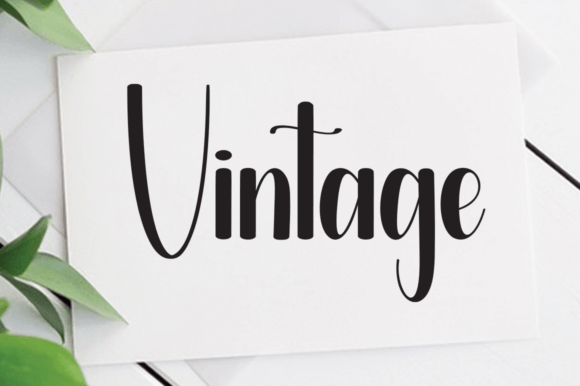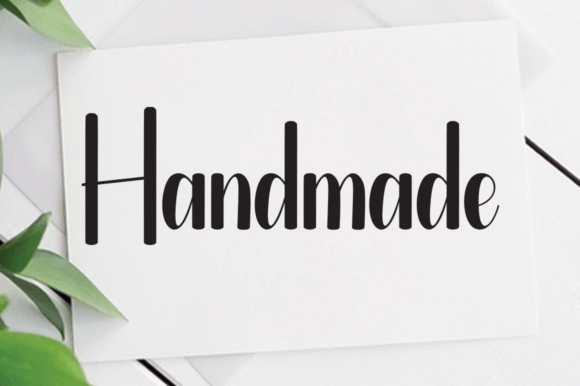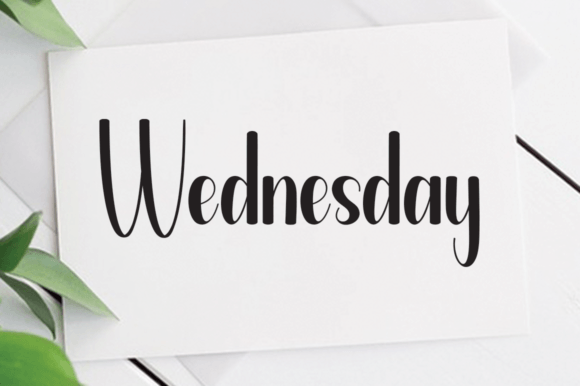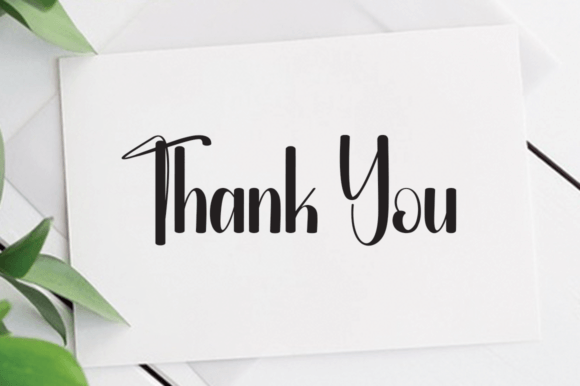
Unleashing the Art of Handwritten Charm: Calligraphy Font
As a designer, have you ever found yourself scribbling down ideas in a notebook, only to be captivated by the beauty of your own handwriting? It’s those moments of creative flow that remind us of the power of human touch in design. And that’s exactly what the Calligraphy Font brings to the table – a sweet and cursive handwritten font that adds a personal, emotive touch to any project.
Calligraphy Font is a versatile tool that can elevate a wide range of design ideas, from wedding invitations to social media graphics. Its gentle curves and flourishes will transport your audience to a world of romance and whimsy, making it a valuable addition to any designer’s toolkit. Whether you’re looking to add a touch of elegance or playfulness to your designs, Calligraphy Font is the perfect choice.
Key Features of Calligraphy Font
- Unique Characteristics: Calligraphy fonts are known for their elegant and cursive writing style, with distinctive flourishes and ornaments that add a touch of sophistication to text.
- Legibility: Despite their decorative nature, calligraphy fonts are designed to be highly legible, making them suitable for use in a variety of applications, including body text and headings.
Calligraphy Font Review
Overall, I think the Calligraphy Font is a beautiful and elegant font that can add a touch of sophistication to any design project. Here are some things that I think work well:
- ✨ The font’s flowing, handwritten feel is perfect for titles, headings, and other text elements that need to stand out.
- ✨ The font’s high level of customization options, such as letter spacing and font size, make it easy to tailor the font to your specific design needs.
- ✨ The font is highly legible, even at smaller font sizes, making it a great choice for body text or other areas where readability is crucial.
- ⚠️ The font can be a bit too ornate for some designs, particularly those that require a more modern or minimalist aesthetic.
- ⚠️ The font may not be suitable for large blocks of text, as the flowing lines can become overwhelming and difficult to read.
- ⚠️ Some users may find the font’s high level of customization options to be overwhelming, particularly if they are not familiar with font design.
Overall, I think the Calligraphy Font is a beautiful and versatile font that can add a touch of elegance to any design project. While it may not be suitable for every design, it’s definitely worth considering for projects that require a high level of sophistication and refinement.
Use calligraphy font for:
- Special occasion cards and gift tags
- Restaurant and cafe menus
- Book titles and headings
For the most effective use of calligraphy font, keep the background simple and use a high-contrast color scheme to make the text stand out.